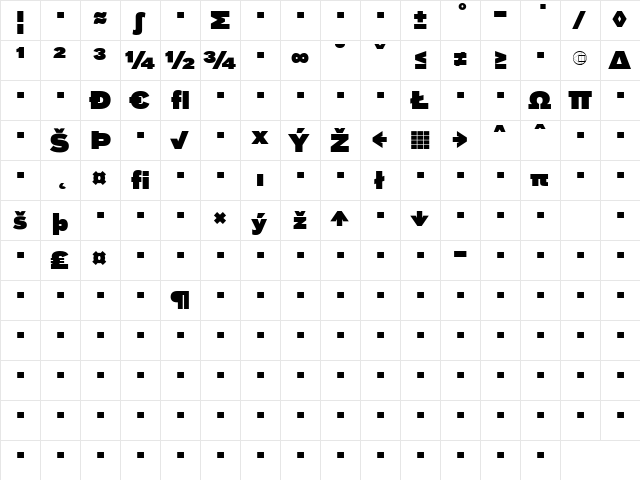
BauLF-SuperExpert Regular
| Foundry | Christian Schwartz published by FontShop International for the FontFont Library |
| Designer | Christian Schwartz |
Design Context for BauLF-SuperExpert Typeface
BauLF-SuperExpert offers clean, dependable letterforms without strong stylistic allegiance, making it a practical choice for designers who need flexibility.